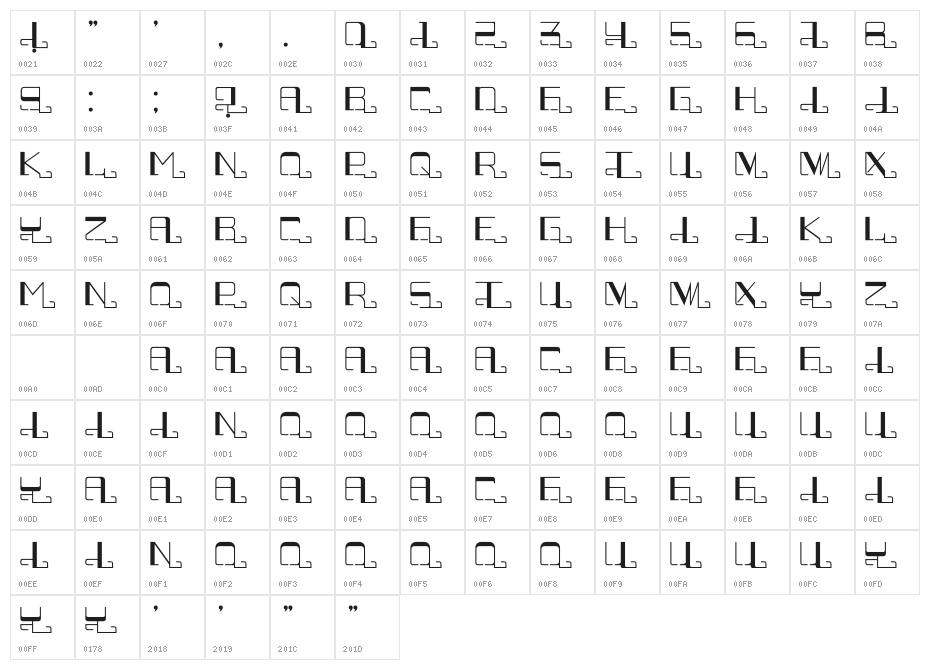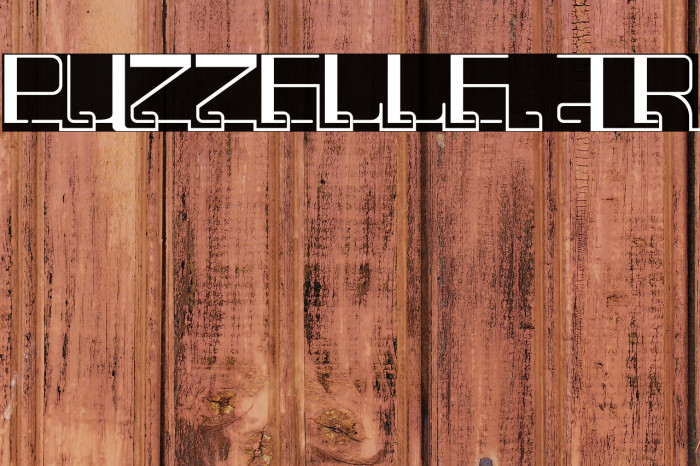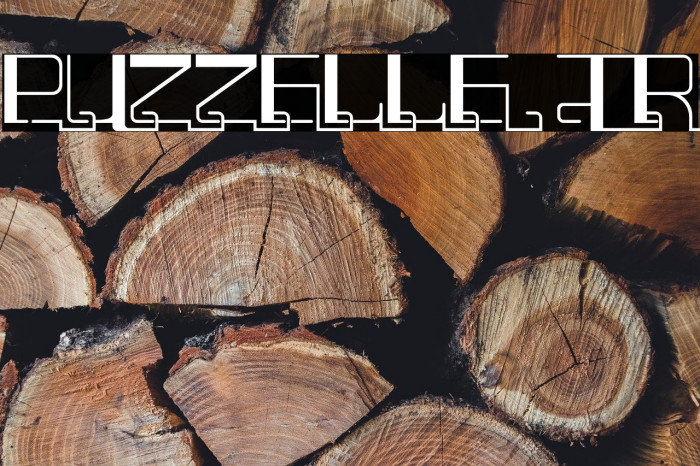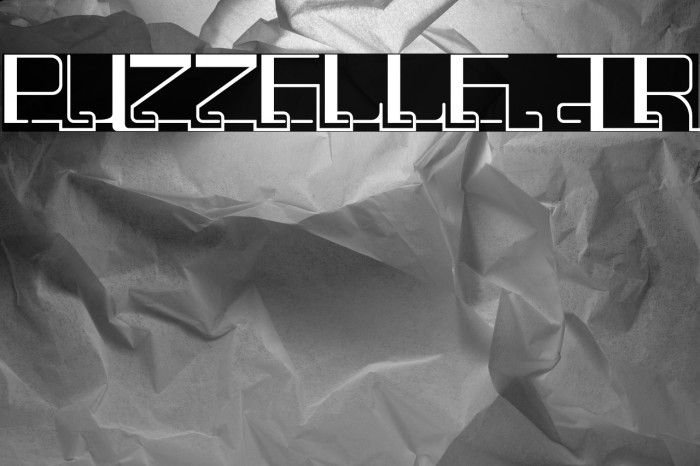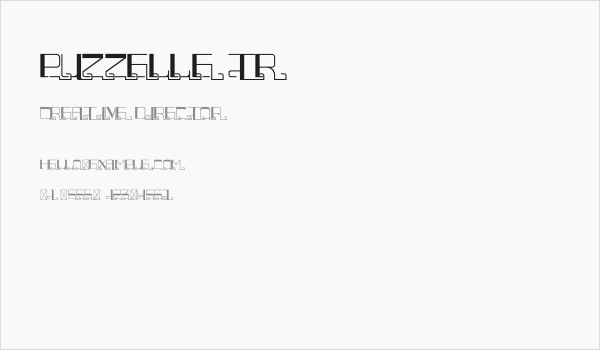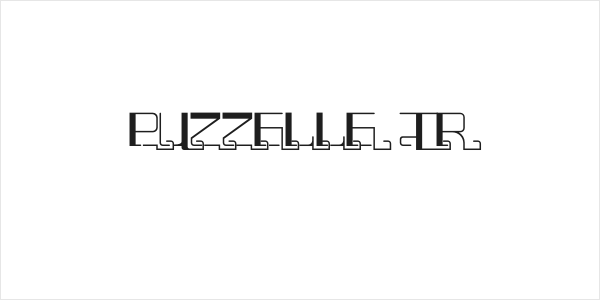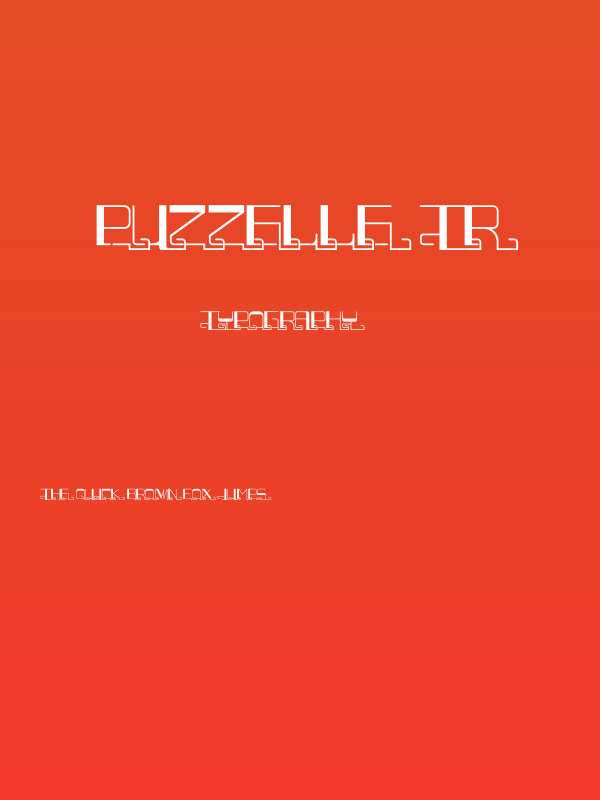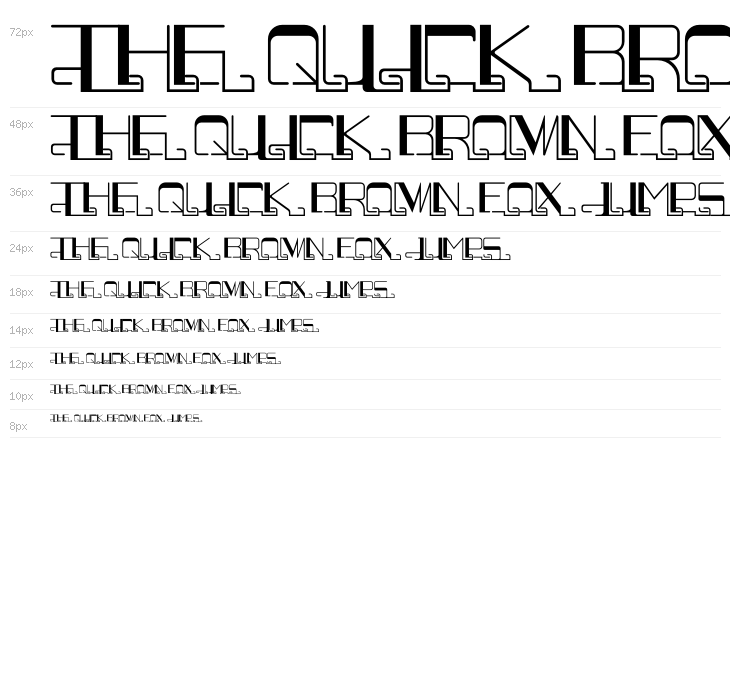
Puzzelle Tr Font
Puzzelle Tr Description
This font features a unique and intricate design, characterized by its geometric and maze-like patterns. Each character is crafted with precision, incorporating sharp angles and bold lines that create a striking visual impact. The uppercase letters are particularly distinctive, with their interconnected shapes and elaborate details. The lowercase letters maintain the same level of complexity, ensuring consistency throughout the typeface. Numbers and special characters are designed with the same attention to detail, making this font versatile for various applications. Its decorative nature makes it ideal for projects that require a bold and artistic touch.
| Proposed Projects | Ideal for branding, posters, album covers, and any project requiring a bold, artistic statement. |